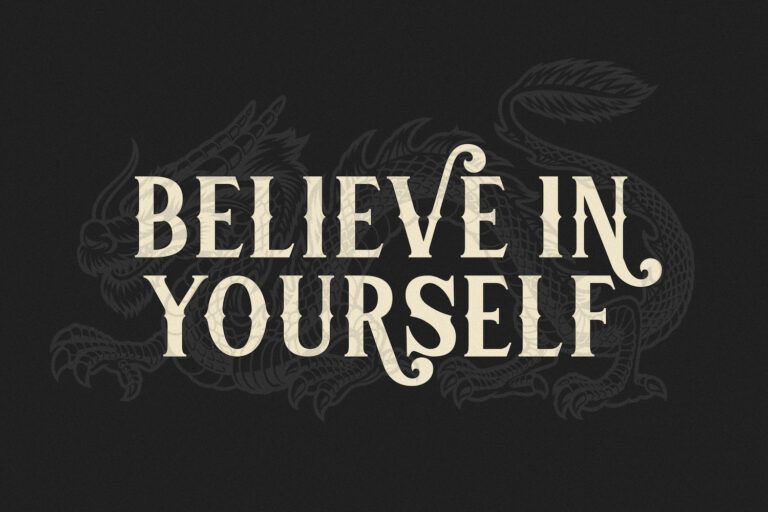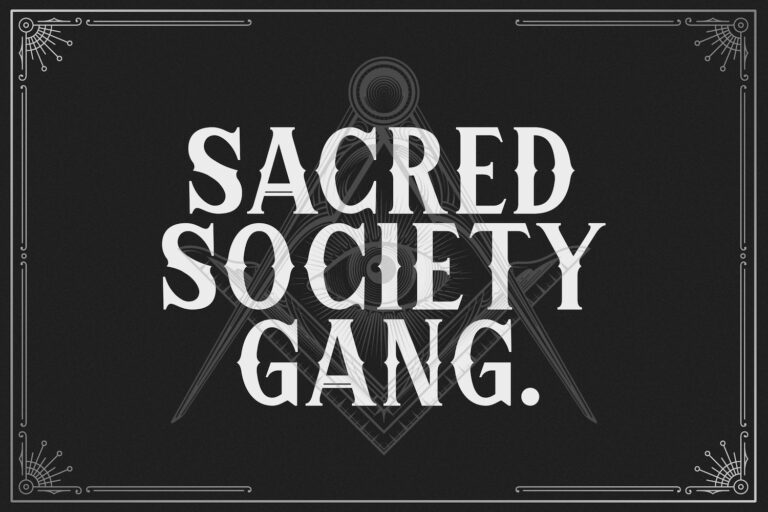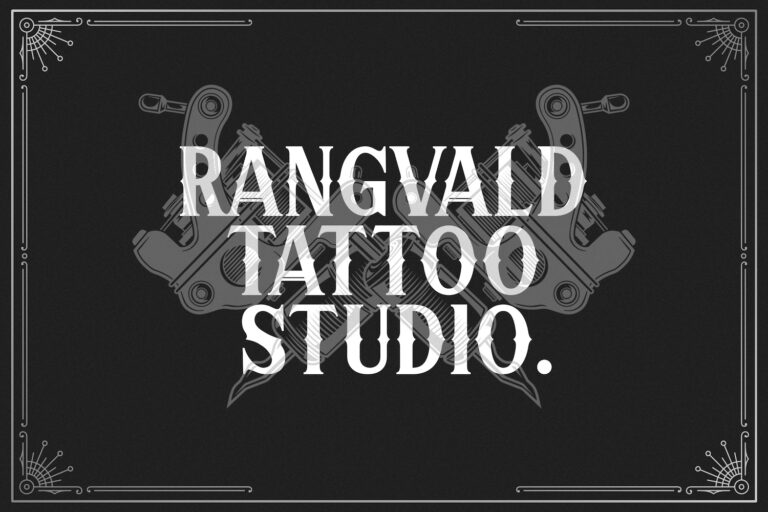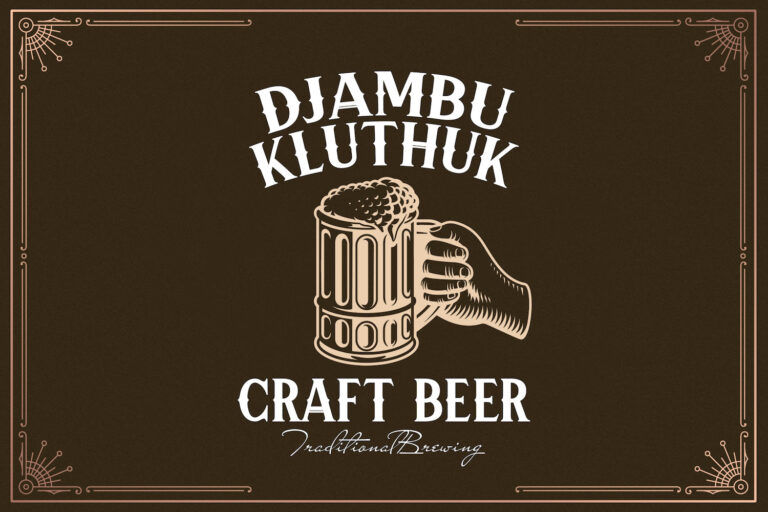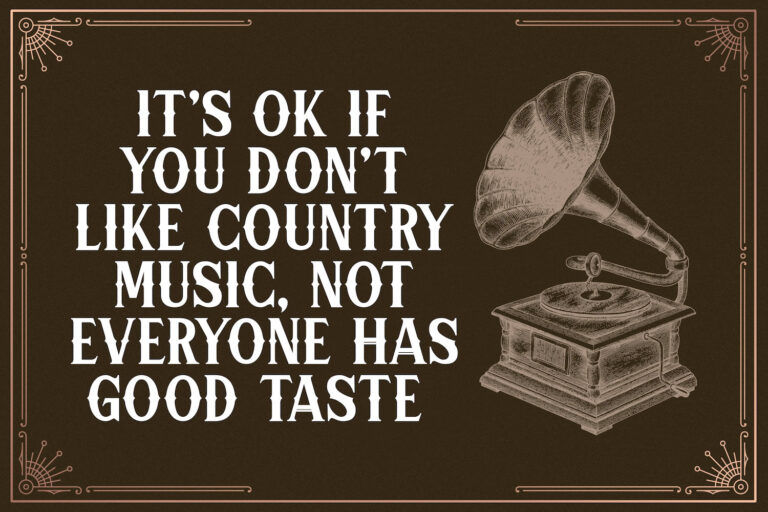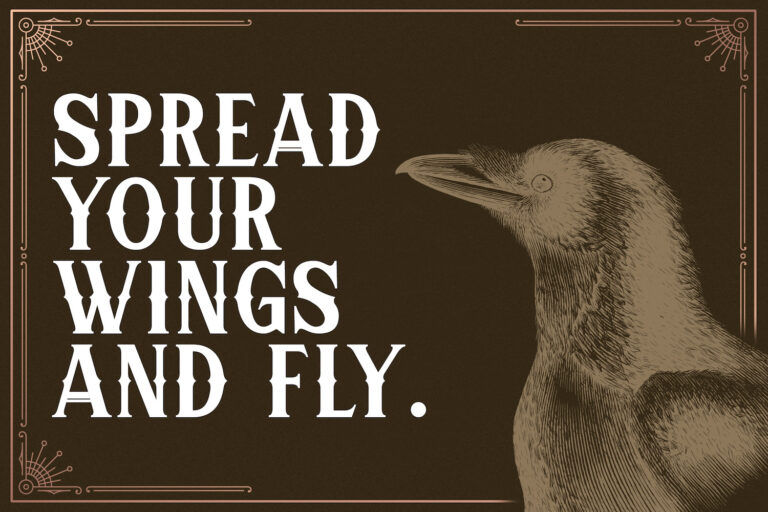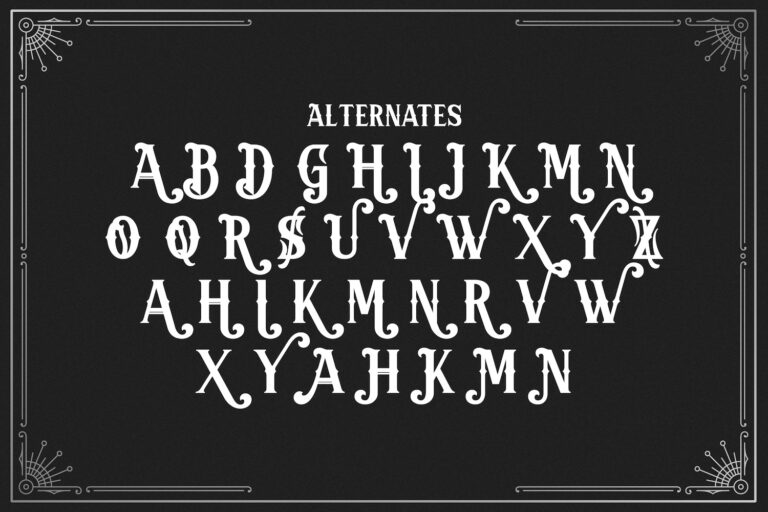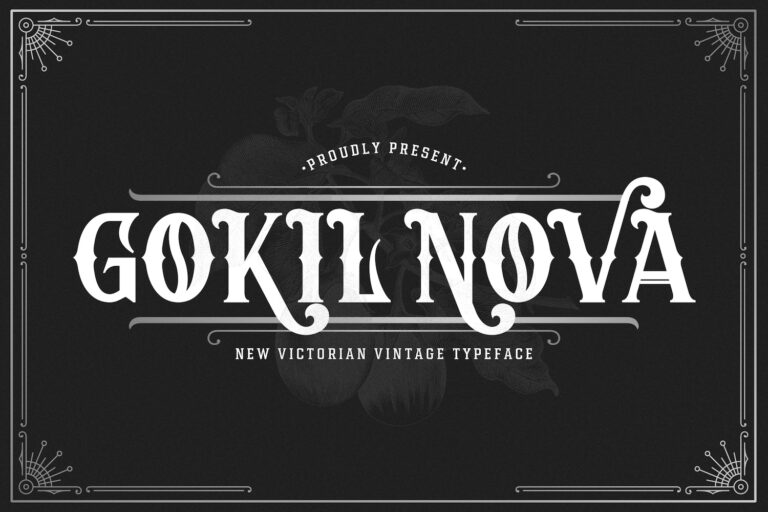
Gokil Nova Victorian Style Font is a bold blackletter display typeface with strong vertical strokes, sharp serifs, and decorative curves that immediately suggest a classic Victorian poster. The solid character shapes keep titles readable, while the ornamental alternates add an expressive flourish when you need extra drama. Gokil Nova Victorian Style Font is best used at larger sizes, where its details and contrast can really be seen in headlines, wordmarks, and typographic logos.
This font suits vintage branding for barbershops, cafes, craft beer or whiskey labels, tattoo studios, and event posters that need an old-time theatrical feel. The complete uppercase character set, numerals, and punctuation make it practical for packaging design, signage, and bold editorial layouts. With its mix of structure and ornament, Gokil Nova Victorian Style Font gives designers an easy way to create impactful retro visuals without sacrificing clarity.